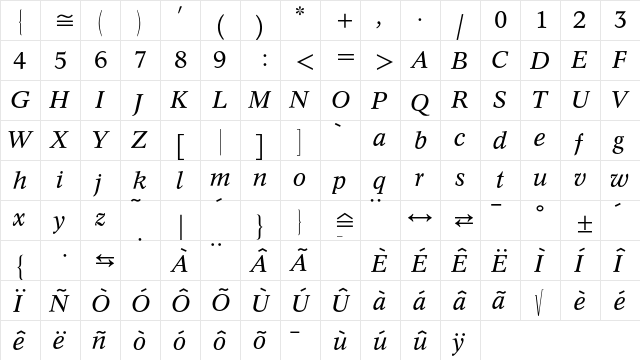
Concorde Math 1 BQ Regular
Design Context for Concorde Math 1 BQ Typeface
Concorde Math 1 BQ offers clean, dependable letterforms without strong stylistic allegiance, making it a practical choice for designers who need flexibility.
Pro Tip: Pair Concorde Math 1 BQ with a font of contrasting weight or personality to build a more expressive typographic hierarchy.